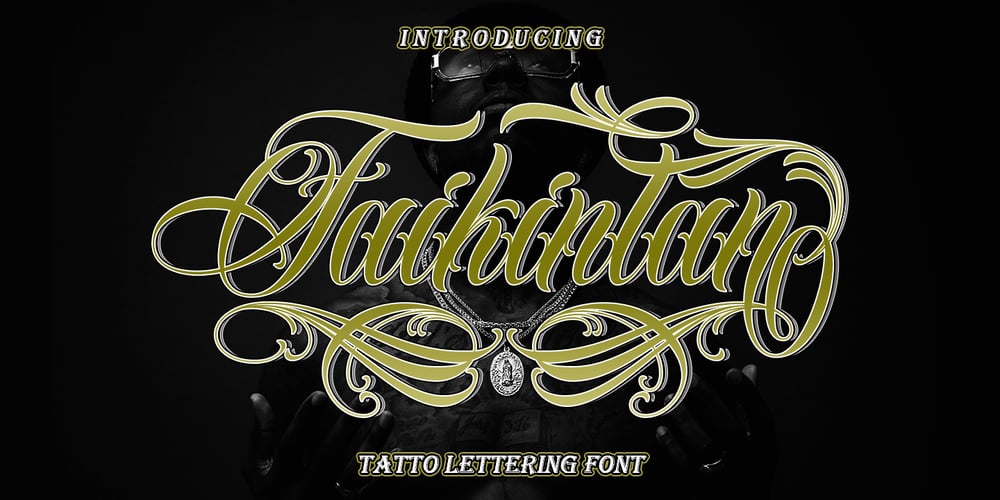
Faikinlan
Faikinlan font
Faikinlan Font Family was designed by M Irvan Syouqi S and published by IRF Lab Studio. Faikinlan contains 2 styles and family package options. Introducing Faikinlan Tattoo Lettering Font with more details, clean, and more complex. Faikinlan includes uppercase and lowercase letters, numerals, a large range of punctuation, ligatures and multilingual language. All lowercase letters include ending swashes and alternative font.Faikinlan swash In order to use the beautiful swashes, you need a program that supports OpenType features such as Adobe Illustrator CS, Adobe Photoshop CC, Adobe Indesign and Corel Draw.Please contact us if you have any question, we are happy to help you!Thank you !